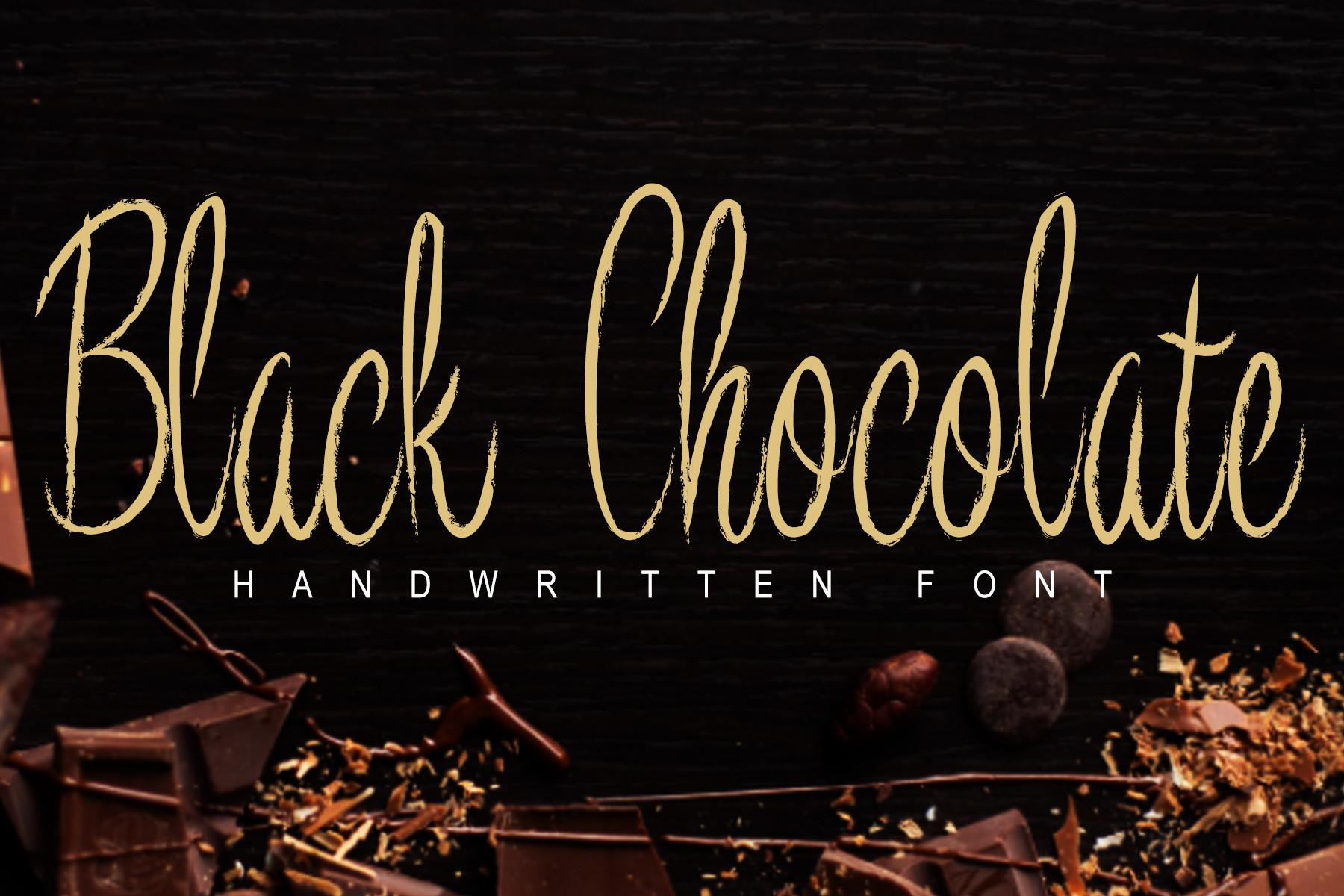
Black Chocolate Font Description
Black Chocolate is a display font. Fall in love with its incredibly versatile style and use it to create spectacular designs! You can use this font on wedding invitations, thank you cards, quotes, greeting cards, logos, business cards, and every other design which needs a simple and fun touch.